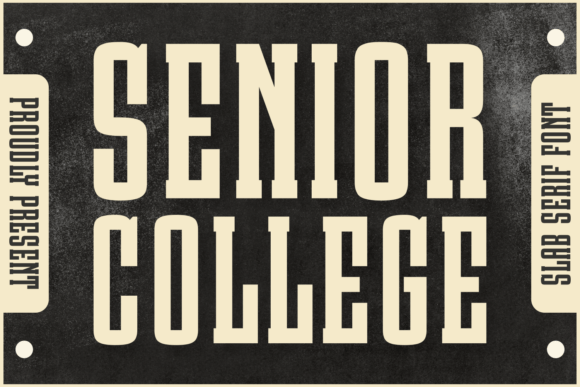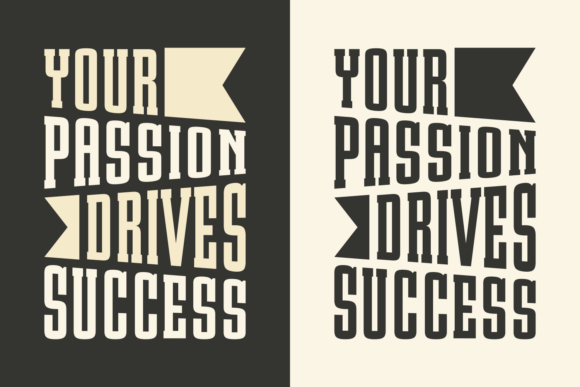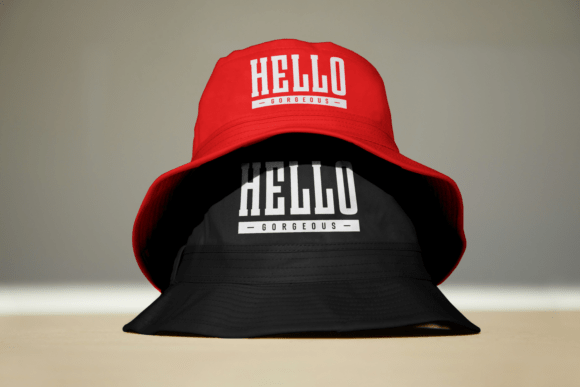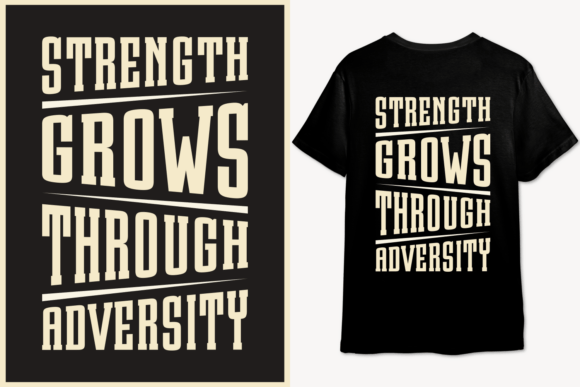
Senior College Font
About the Senior College Font
Elevate your designs with Senior College Font, a font that combines sophistication with readability. Experience the bold charm of “Senior College”, an amalgamation of vintage elegance in a slab serif typeface. With its robust, thick stature, this font adds emphasis and accent on any canvas, making it perfect for apparel design, authentic branding, and striking book covers. Its neat design encapsulates both form and function, fitting for cards, print covers, and greetings. The rich nuance of “Senior College” font brings life to logotypes and makes an impactful statement in magazines. From packaging design to wearable quotes, this font effortlessly captures typography’s essence. Stay on-trend with its timeless appeal, suitable for seasonal influences. Coupled with multilingual support, “Senior College” truly embodies diverse linguistic artistry.
Senior College Font Usage Examples
Senior College Font Example